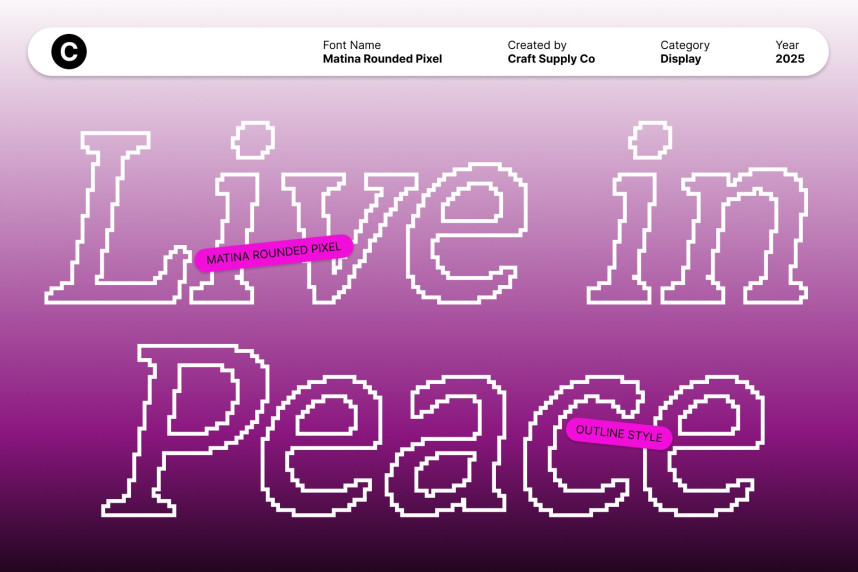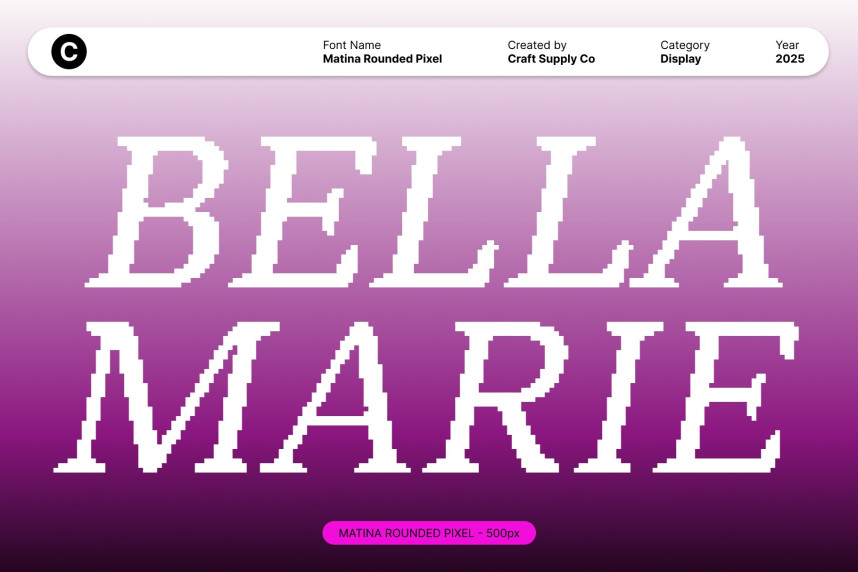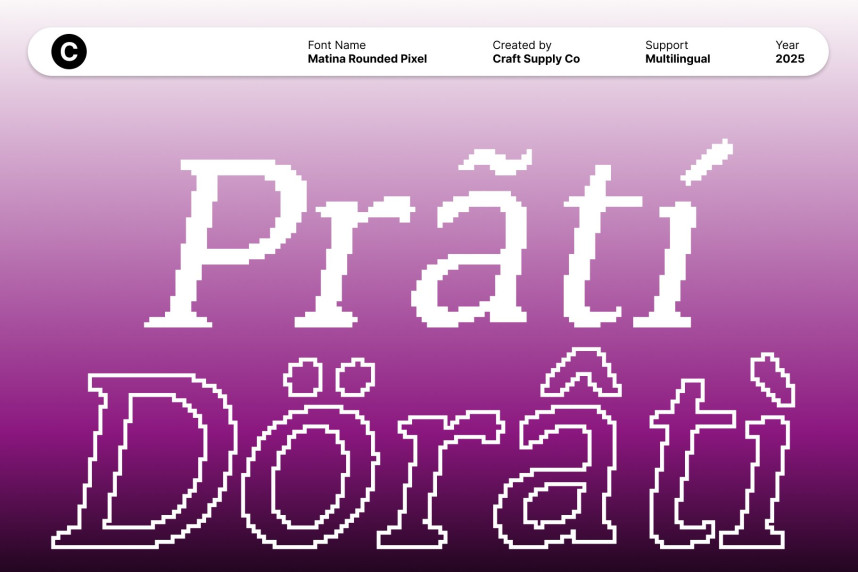
Matina Rounded Pixel Font
Matina Rounded Pixel Font – Modern Serif Display Font with Pixel Precision Clean Slender Lines for Sophisticated Professionalism. This is a modern serif display font designed with clean, slender lines in an 80-bit aesthetic, creating a polished and professional appearance. Its precise forms convey elegance and clarity, making it ideal for projects that demand sophistication and refined typography.